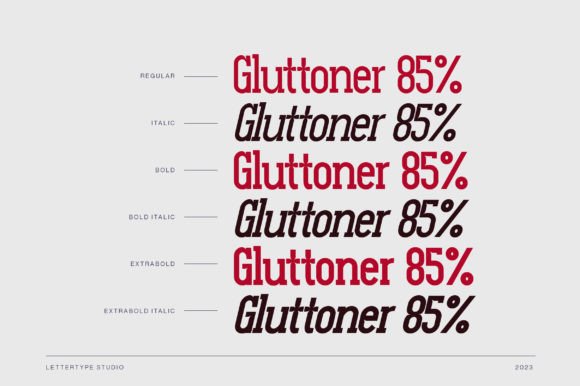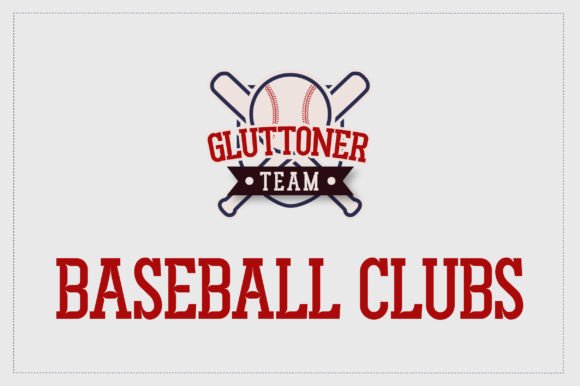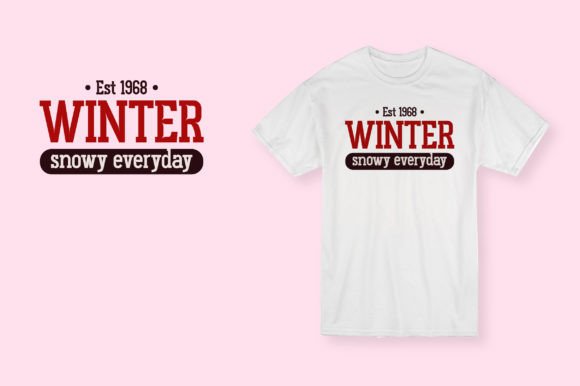
Introduction to Gluttoner Font
Gluttoner is a vintage & bold serif font inspired by urban culture with strong characters.
Welcome to the new bold world inktrap serif characters, that fonts will help for any of your projects .
Key Features of Gluttoner Font